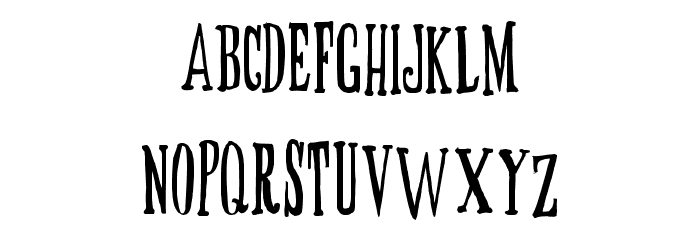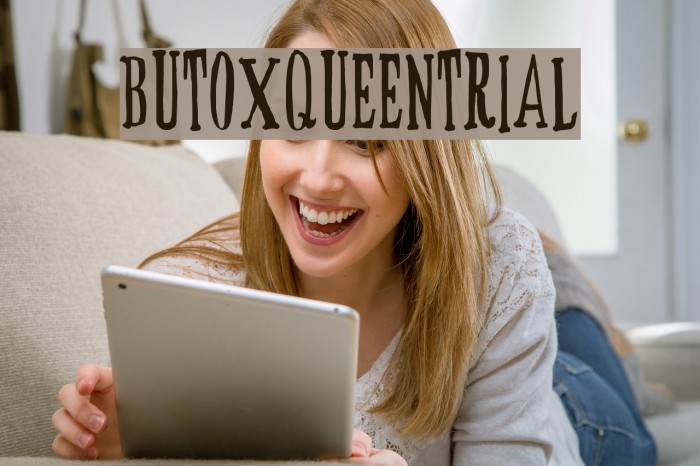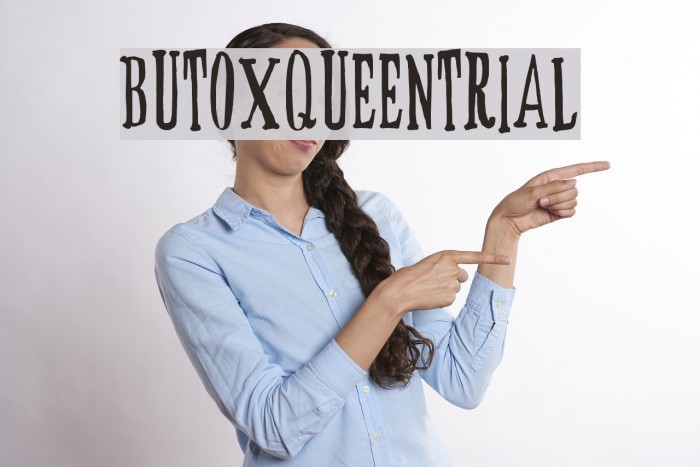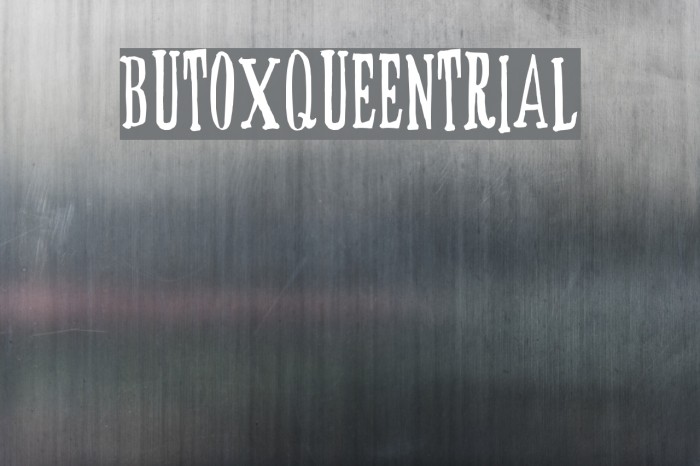
BUTOXQUEEN-trial Font
This font features a bold and dynamic style with a slightly condensed appearance. The characters have a playful yet structured form, with a hint of vintage flair. The uppercase letters are tall and commanding, while the lowercase letters maintain a consistent flow. The strokes are moderately thick, providing a strong presence without overwhelming the design. The overall aesthetic is reminiscent of classic poster fonts, making it suitable for eye-catching headlines and titles. The font's unique character shapes add a touch of personality, making it ideal for creative projects that require a distinctive look.
A bold, vintage-inspired font with a playful and structured style.
- Proposed Projects: Ideal for posters, headlines, branding, and creative design projects.
- Overall Style: Vintage